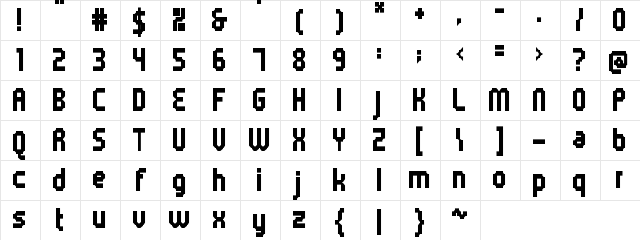
5Metrik Black Condensed is a composed and adaptable typeface that performs quietly and consistently across a wide range of design contexts. Its narrow stance lets it pack a punch even in space-constrained designs.
Pro Tip: Use 5Metrik Black Condensed in both headline and body roles to test its range before committing to a single application.